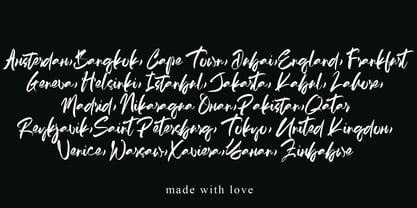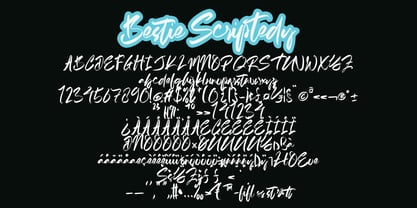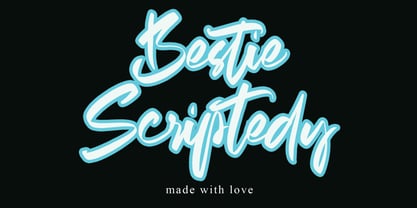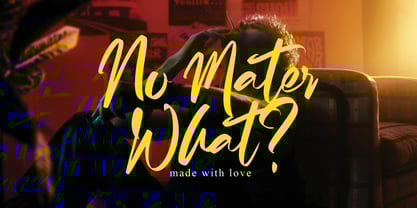
Bestie Scriptedy
by Ayska
The Bestie Scriptedy Font Family was designed by Dhoni Trihatmoko and published by Ayska. Bestie Scriptedy contains 1 styles.
Presenting Bestie Scriptedy, a captivating blend of contemporary elegance and the refined simplicity of handwritten notes. This distinct and masterfully handcrafted font exudes a special charm that can elevate any digital masterpiece. With its versatile allure, Bestie Scriptedy can captivate your blog readers, infuse personality into your digital planner, personalize your invitation cards, or express sincere sentiments in your greeting cards. Delight in the timeless fascination and artistic power of Bestie Scriptedy as it enhances the charm of your photo galleries or personalizes your home decor. Boasting the ability to turn ordinary visuals into mesmerizing masterpieces, this extraordinary font brings a magical touch to your digital artistry. Immerse yourself in the inviting possibilities of Bestie Scriptedy, your creative beacon navigating you towards a wonderland of unforgettable creations. Embark on an inspiring journey with Bestie Scriptedy, and watch as your creative thoughts blossom into beautifully-rendered digital art.